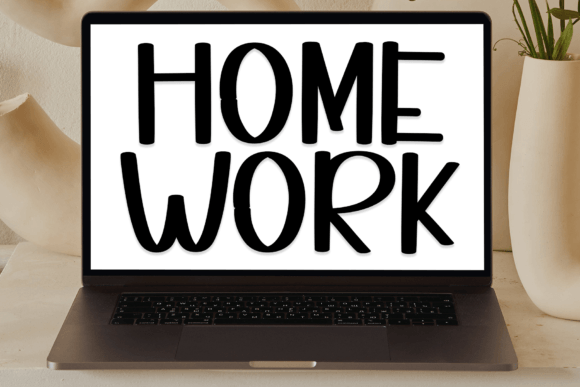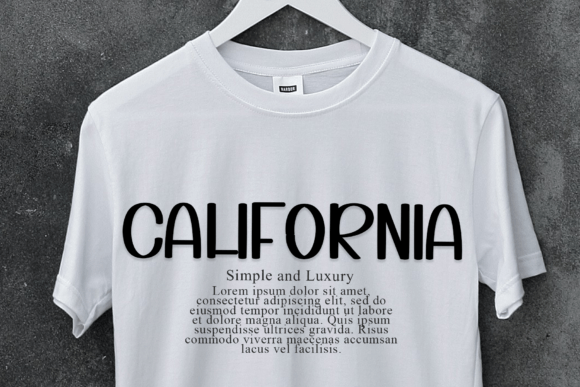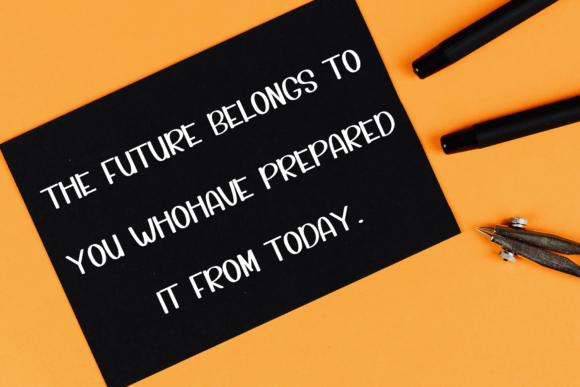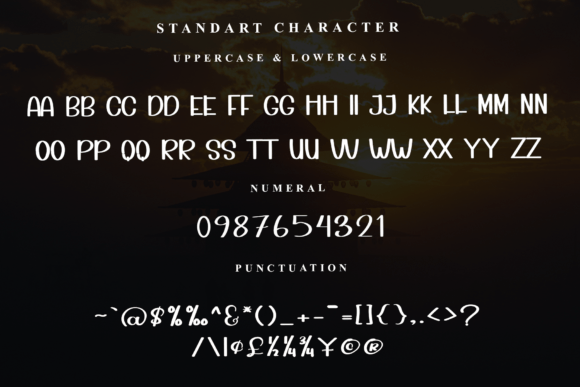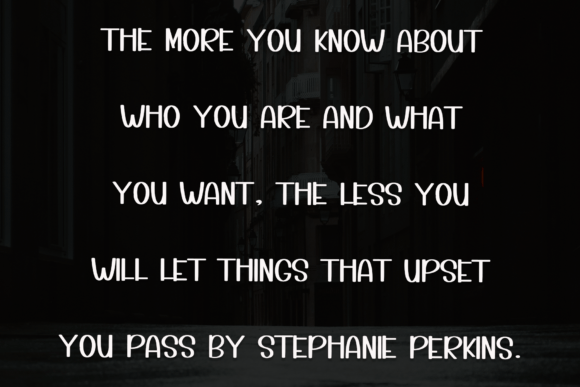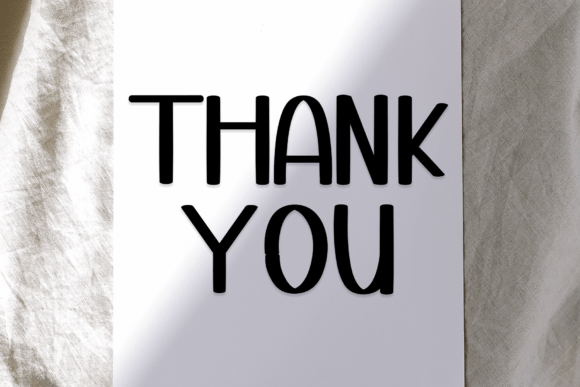
Introducing Frontman Font: The Perfect Blend of Freshness and Elegance
In the world of typography, fonts play a crucial role in conveying the tone and personality of a brand or design project. If you’re a designer or crafty enthusiast looking for a font that exudes a sense of freshness and casual elegance, look no further than Frontman Font. This charming sans-serif font is designed to add a touch of warmth and personality to various design projects, making it an excellent choice for branding, invitations, social media graphics, and more.
The Characteristics of Frontman Font
Frontman Font boasts fluid strokes and organic lines that evoke a laid-back vibe, perfect for designers who want to create a relaxed and approachable atmosphere in their work. Its sans-serif design ensures clarity and readability, making it suitable for both digital and print applications. The font’s unique characteristics include:
- Fluid strokes: Frontman Font features smooth, flowing strokes that give it a dynamic and energetic feel.
- Organic lines: The font’s organic lines add a touch of warmth and personality to the text, making it perfect for designs that require a human touch.
- Sans-serif design: The clean and minimalist sans-serif design ensures that the font remains legible and easy to read, even at smaller sizes.
Frontman Font is an incredibly versatile font that can be used in a wide range of design projects, including:
- Branding: Use Frontman Font to create a unique and memorable brand identity that reflects your company’s personality and values.
- Invitations: Add a touch of elegance and sophistication to your invitations with Frontman Font, perfect for weddings, parties, and other special events.
- Social media graphics: Make your social media graphics stand out with Frontman Font, ideal for creating engaging and shareable content.
- Packaging design: Use Frontman Font to create eye-catching packaging designs that reflect your brand’s personality and style.
Why Choose Frontman Font?
With so many fonts available, why choose Frontman Font for your design projects? Here are just a few reasons:
- Unique personality: Frontman Font has a distinct personality that sets it apart from other fonts, making it perfect for designers who want to create a lasting impression.
- High legibility: The font’s sans-serif design and clear lines ensure that it remains legible, even at smaller sizes.
- Versatility: Frontman Font can be used in a wide range of design projects, from branding and invitations to social media graphics and packaging design.
Tips for Using Frontman Font
To get the most out of Frontman Font, here are a few tips to keep in mind:
- Experiment with font sizes: Frontman Font looks great at a variety of font sizes, so don’t be afraid to experiment to find the perfect size for your design.
- Pair with other fonts: Try pairing Frontman Font with other fonts to create a unique and visually appealing combination.
- Use for headlines and body text: Frontman Font is suitable for both headlines and body text, making it a great choice for designers who want to create a cohesive look.
In conclusion, Frontman Font is a charming sans-serif font that offers a perfect blend of freshness and elegance. Its fluid strokes, organic lines, and sans-serif design make it an excellent choice for various design projects, from branding and invitations to social media graphics and packaging design. With its unique personality, high legibility, and versatility, Frontman Font is sure to become a favorite among designers and crafty enthusiasts.